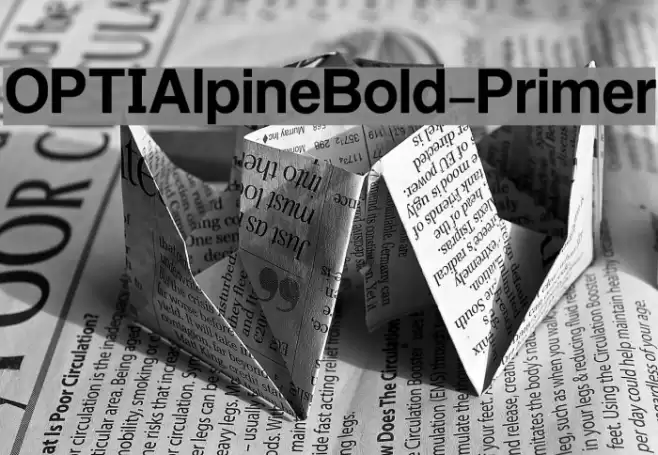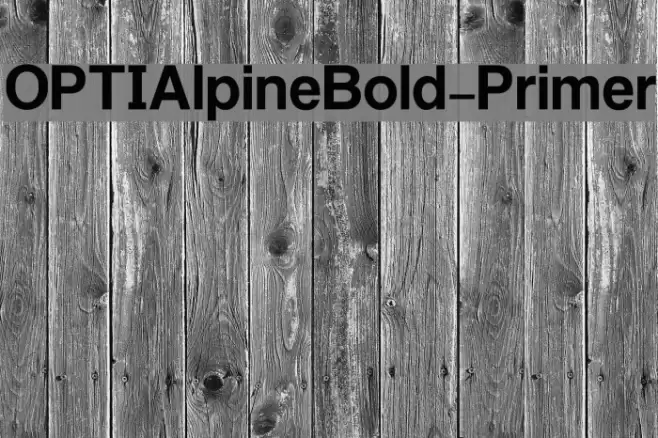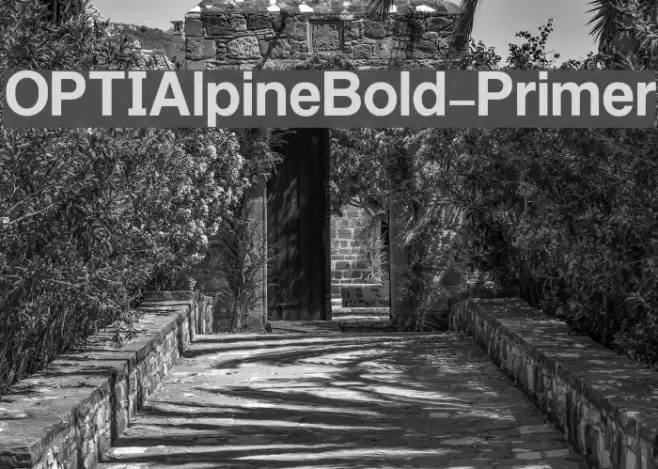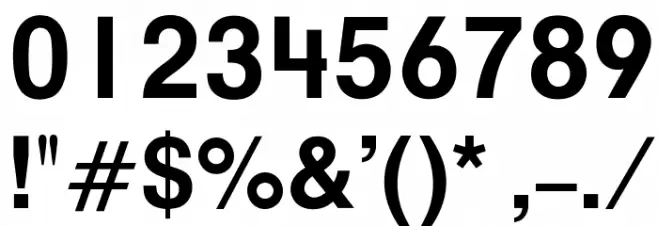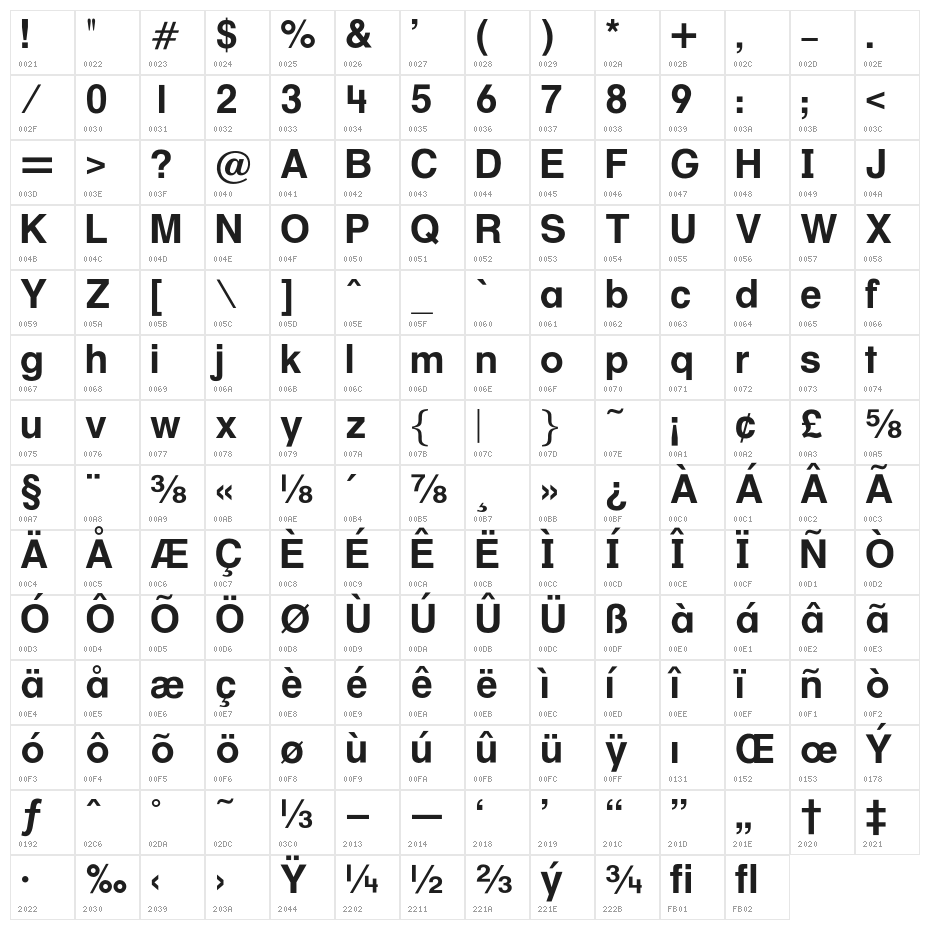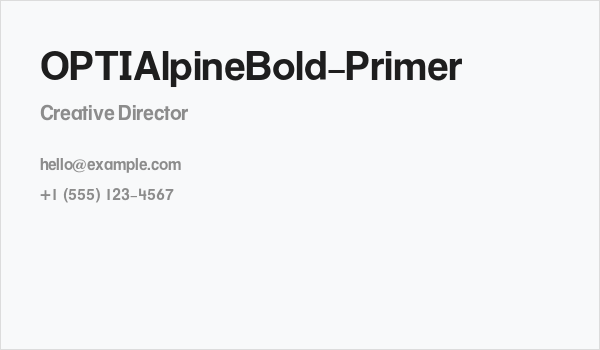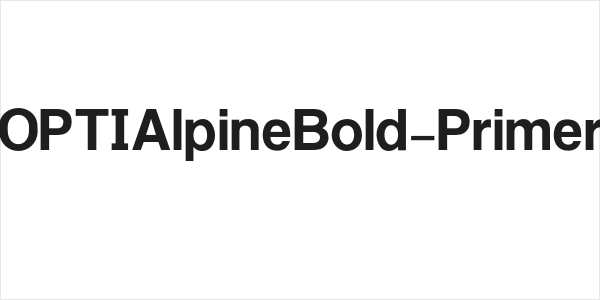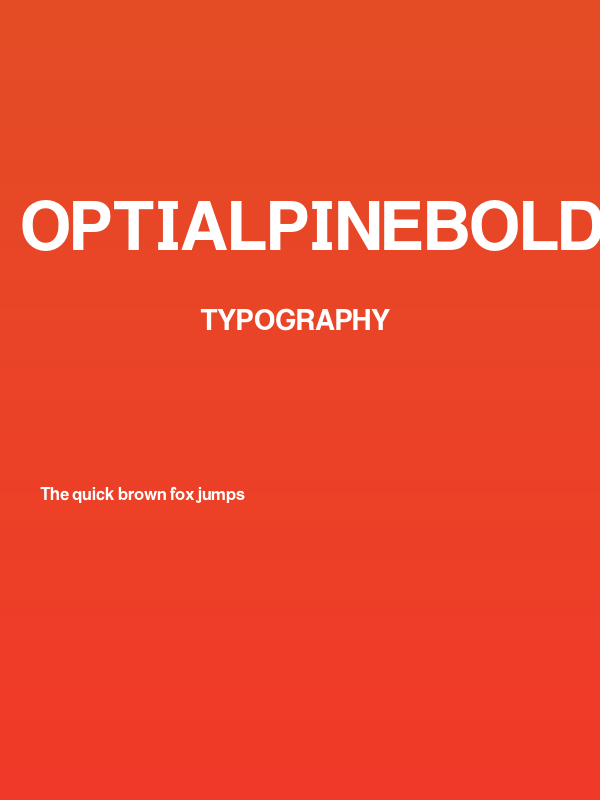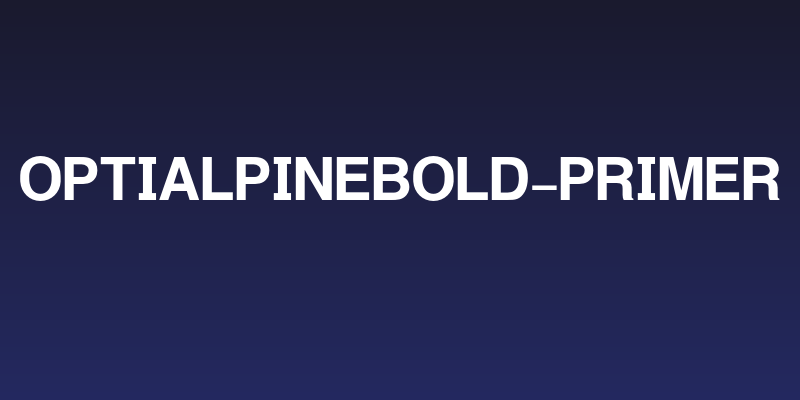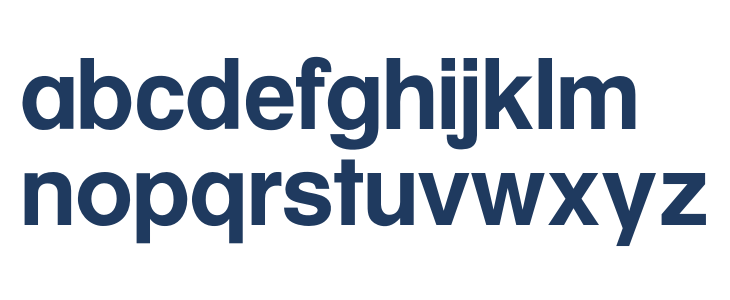
OPTIAlpineBold-Primer Font
OPTIAlpineBold-Primer Description
This font features a bold and assertive style, characterized by its thick strokes and strong presence. The uppercase letters are uniform and balanced, providing a sense of stability and confidence. The lowercase letters maintain a consistent weight, ensuring readability and cohesion across different text sizes. The numerals are clear and straightforward, making them suitable for both display and body text. Special characters are well-defined, adding versatility to the font's application. Overall, the font's design is modern and clean, making it ideal for a variety of professional and creative projects.
A bold, modern font with strong, uniform strokes and excellent readability from Uncategorized fonts.
- Proposed Projects: Ideal for branding, headlines, posters, and digital media where a strong visual impact is needed.
- Use Case: Headlines, Logos, Branding